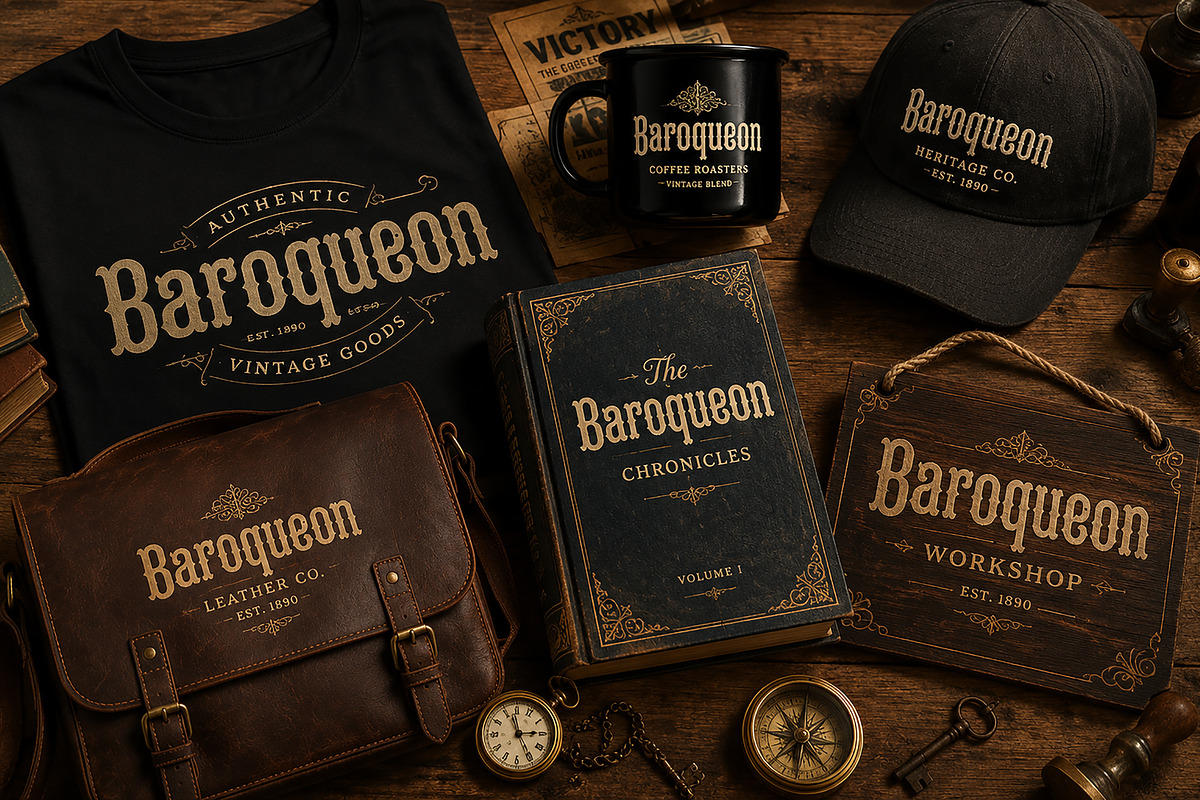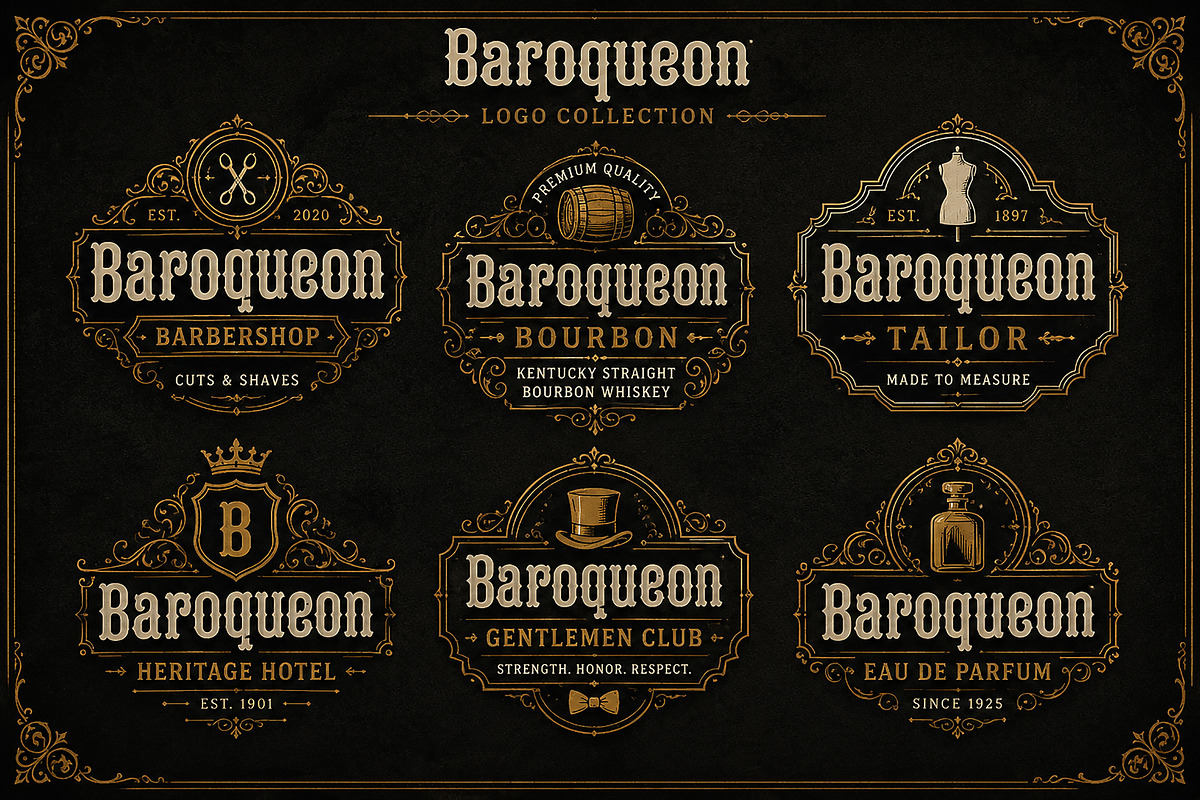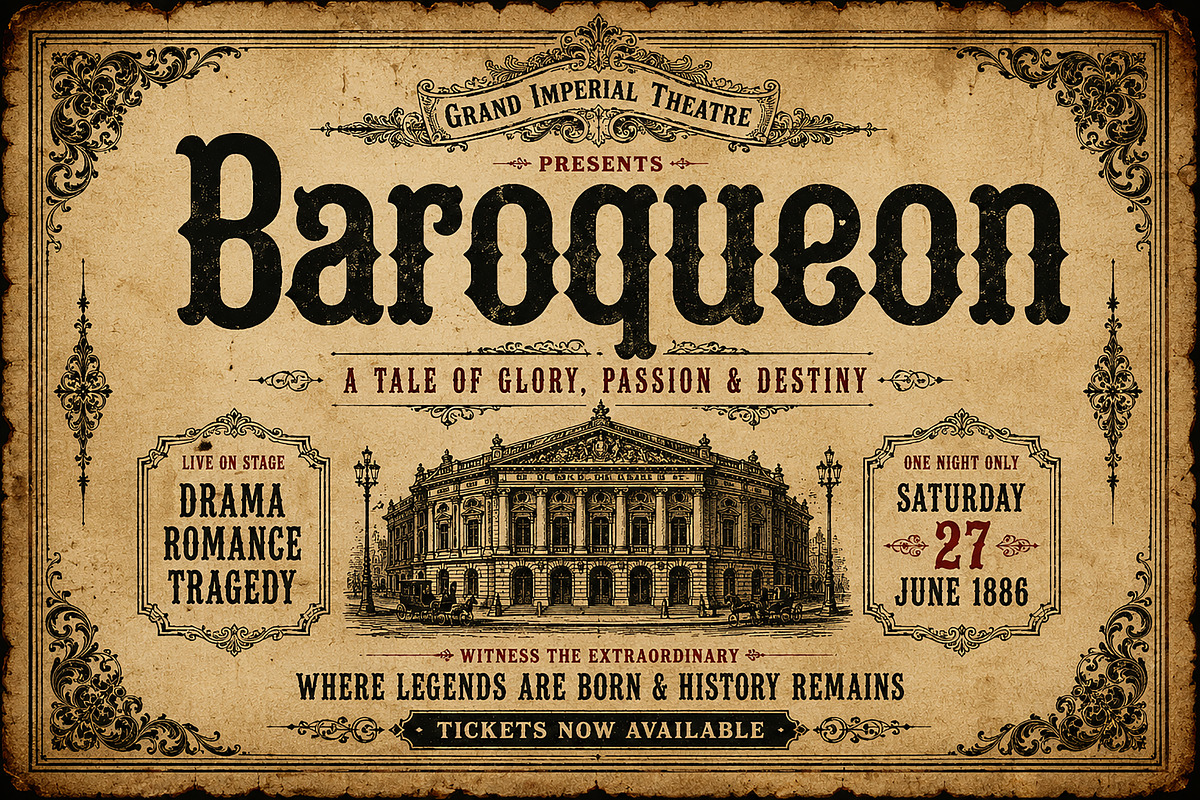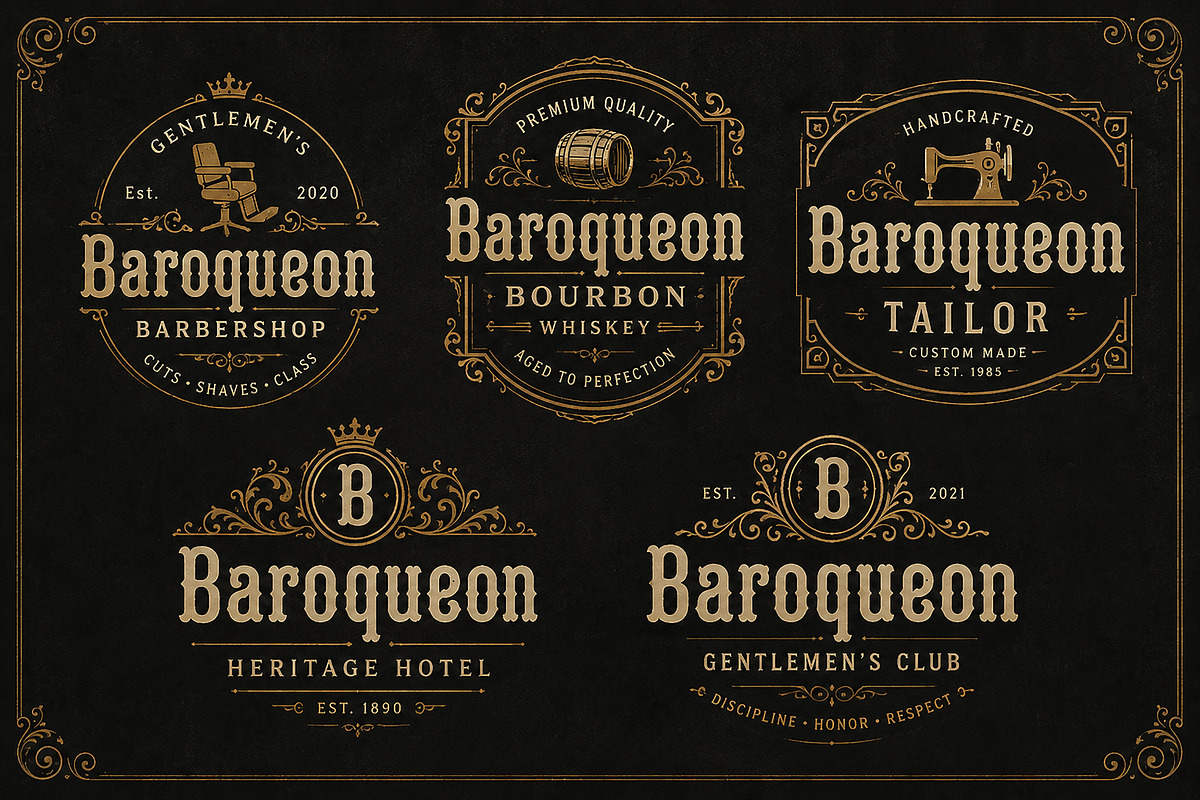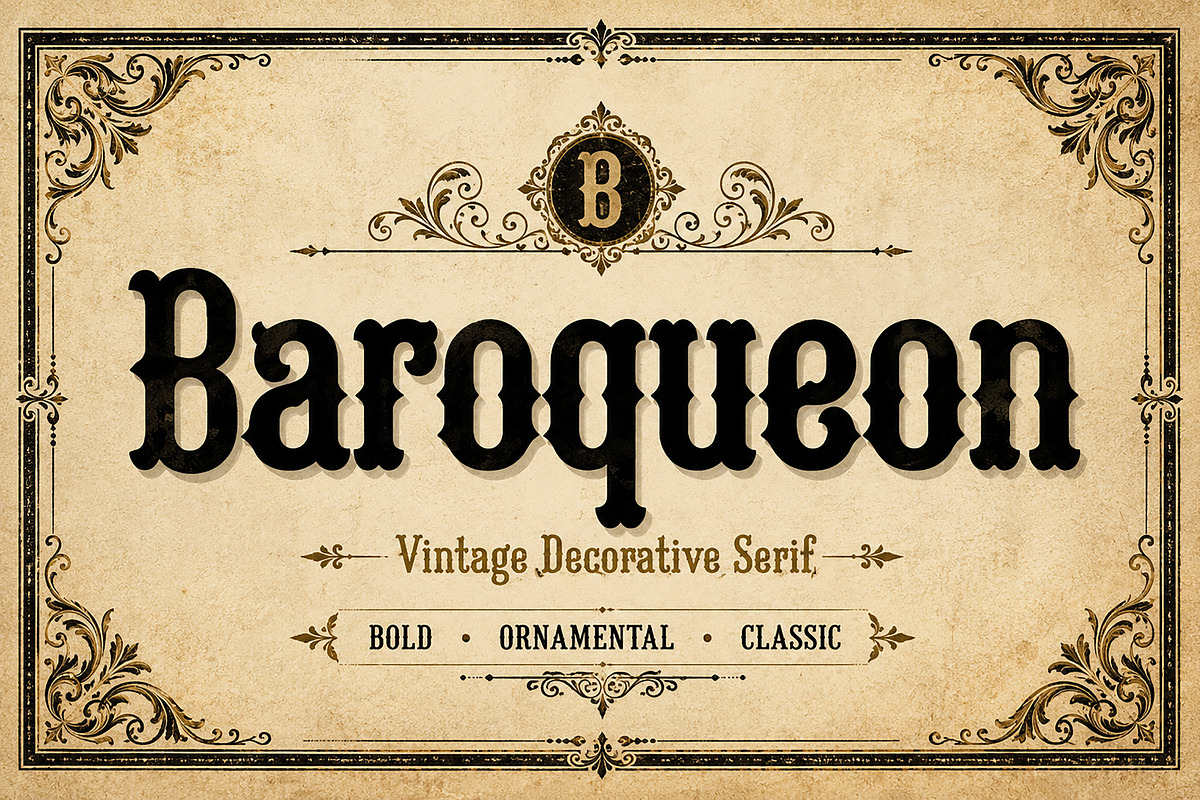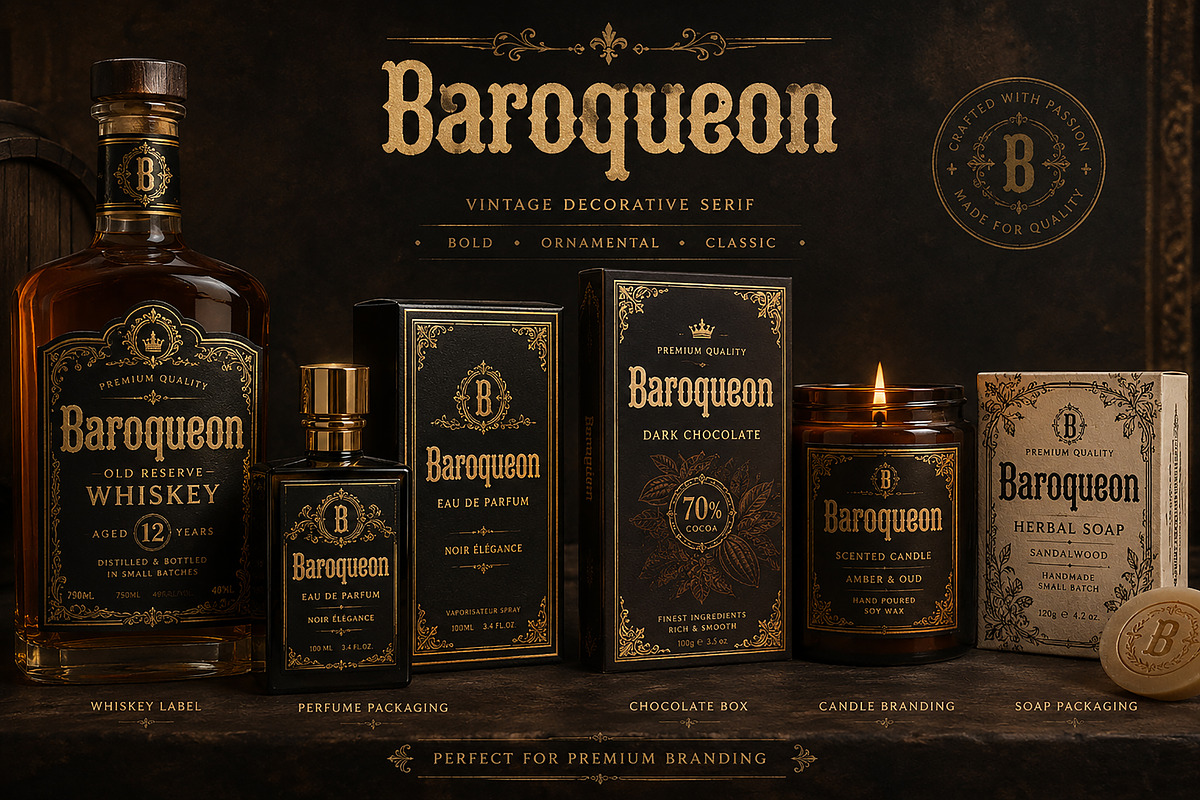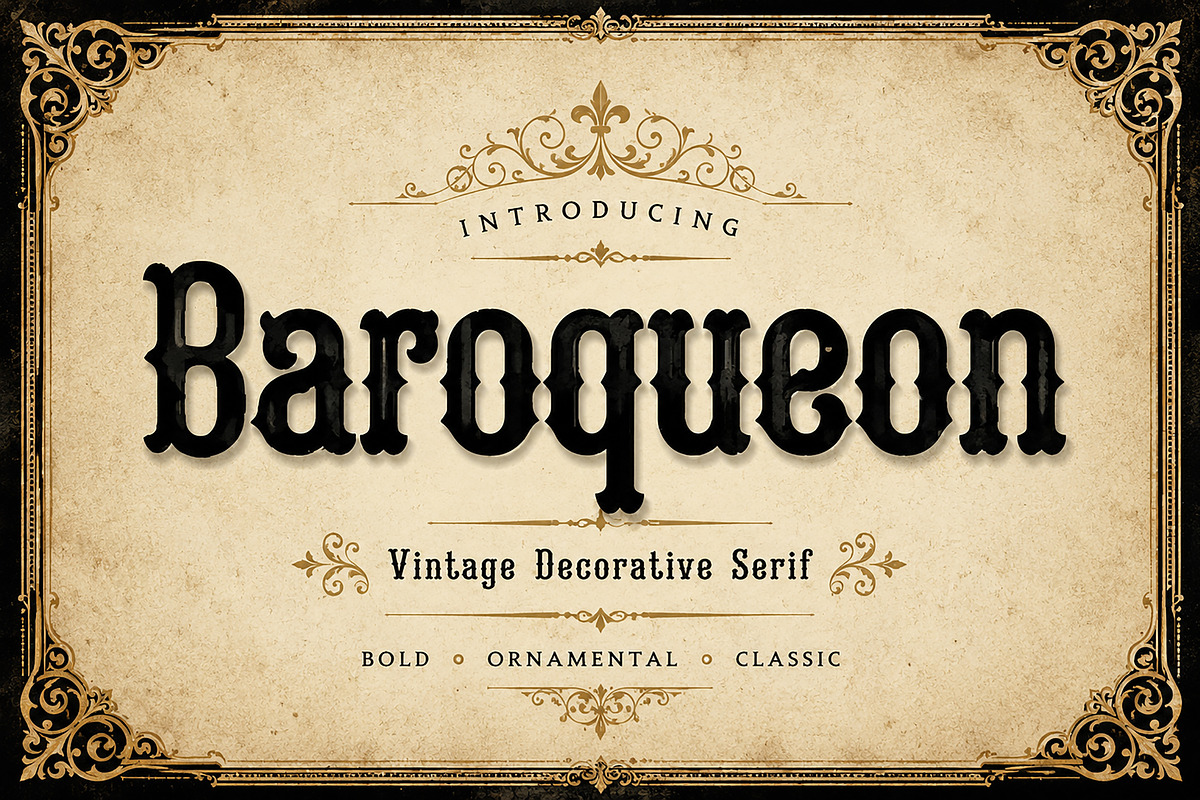
Baroqueon
Baroqueon is a bold vintage decorative serif inspired by Victorian typography, western saloon signage, antique book covers, and classic engraved branding. Designed with strong ornamental details and dramatic serif forms, this typeface delivers a timeless old-world charm with a luxurious and heritage-driven feel.
Perfect for logos, whiskey labels, barbershop branding, hotel identity, packaging, posters, apparel, book covers, signage, and premium vintage merchandise.
Its bold structure and decorative personality make it ideal for projects that need elegance, tradition, and powerful visual presence.
Vintage Branding
Whiskey Labels
Barbershop Logos
Western Posters
Heritage Branding
Hotel Logos
Gentleman Club Branding
Apparel Design
Signboards
Luxury Labels
Editorial Titles
Badge Design
Baroqueon is crafted to bring a strong vintage soul into modern creative projects.